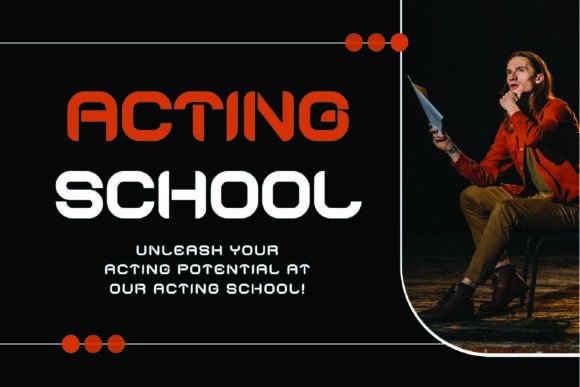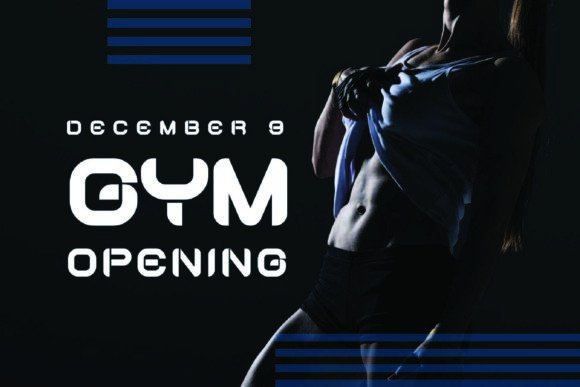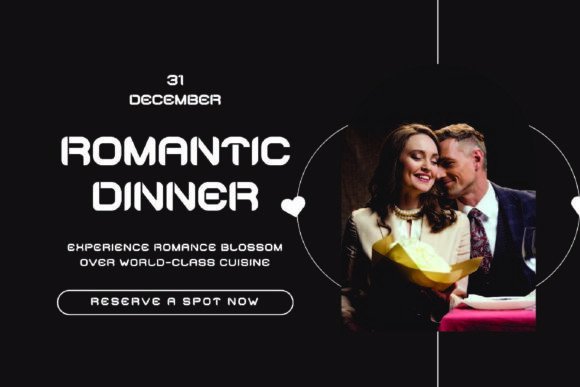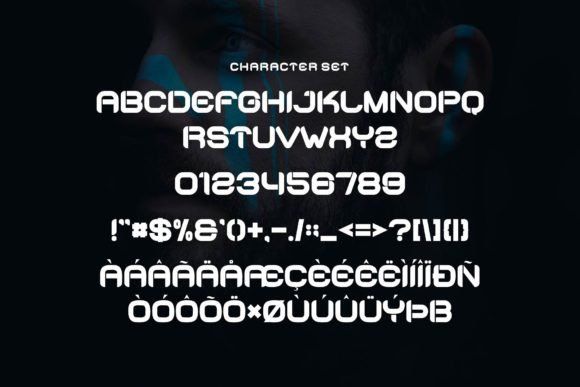
Darcy Font: Elevate Your Design with Elegance and Sophistication
In the realm of typography, a well-crafted font can make all the difference in the success of a design project. For those seeking a sleek, sophisticated, and versatile typeface, look no further than the Darcy Font. Designed with modern applications in mind, Darcy is a sans-serif font that embodies elegance and style, making it an ideal choice for a wide range of design endeavors.
The Design Philosophy Behind Darcy
Darcy is characterized by its clean lines and balanced proportions. These design elements combine to create a font that exudes a sense of refinement and poise. The sleek and uncluttered appearance of Darcy makes it highly legible, ensuring that your message is conveyed with clarity and impact. Whether you’re working on a branding campaign, editorial design, or advertising project, Darcy provides a solid foundation for effective communication.
Key Features of the Darcy Font
- Clean Lines: Darcy’s clean and minimalist design ensures that your text is easy to read, even at smaller sizes.
- Balanced Proportions: The font’s carefully considered proportions enhance readability and aesthetic appeal, making it suitable for a variety of applications.
- Sophisticated Style: Darcy brings a touch of sophistication to any project, elevating the overall design and making it more engaging.
- Versatility: From digital interfaces to print materials, Darcy’s versatility shines through, adapting seamlessly to different mediums and design requirements.
Applications of the Darcy Font
The versatility of the Darcy Font makes it suitable for a broad spectrum of design projects. Here are some of the key areas where Darcy can make a significant impact:
- Branding: Establish a strong brand identity with Darcy’s elegant and professional appearance. Use it for logos, business cards, and other brand materials to create a cohesive and sophisticated look.
- Editorial Design: Enhance the readability and visual appeal of your editorial content with Darcy. It’s perfect for magazines, newspapers, and digital publications, offering a clean and modern aesthetic.
- Advertising: Make your advertisements stand out with Darcy’s sleek and impactful design. Whether it’s a billboard, digital ad, or print advertisement, Darcy helps grab attention and convey your message effectively.
Why Choose Darcy Font?
In a world where typography plays a crucial role in design success, choosing the right font is paramount. Here are some compelling reasons to choose Darcy for your next project:
- Elegance: Darcy brings a level of elegance and sophistication that can elevate any design project.
- Legibility: Its clean design and balanced proportions ensure high legibility, making it easy for your audience to engage with your content.
- Versatility: Darcy adapts well to various design applications, providing flexibility and consistency across different mediums.
- Modern Appeal: With its sleek and contemporary design, Darcy is perfect for projects that require a modern and fresh look.
Darcy Font is a powerful tool for designers and crafters looking to add a touch of elegance and sophistication to their projects. Its sleek design, balanced proportions, and versatility make it an excellent choice for a wide range of applications, from branding and editorial design to advertising. By incorporating Darcy into your design workflow, you can enhance the aesthetic appeal and effectiveness of your projects. Whether you’re working on a digital interface, print material, or advertising campaign, Darcy is sure to make a statement and leave a lasting impression.
Embrace the sophistication and versatility of the Darcy Font in your design endeavors. With its sleek lines, balanced proportions, and wide range of applications, Darcy is poised to become a go-to typeface for designers seeking to create impactful and elegant designs.